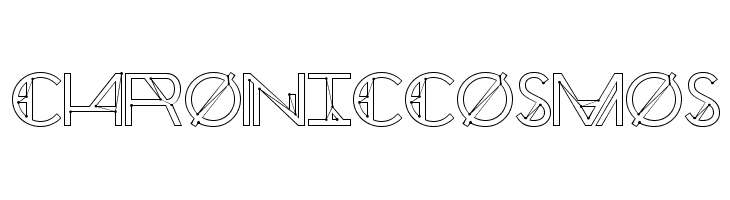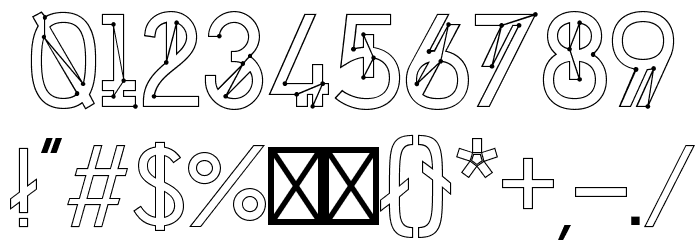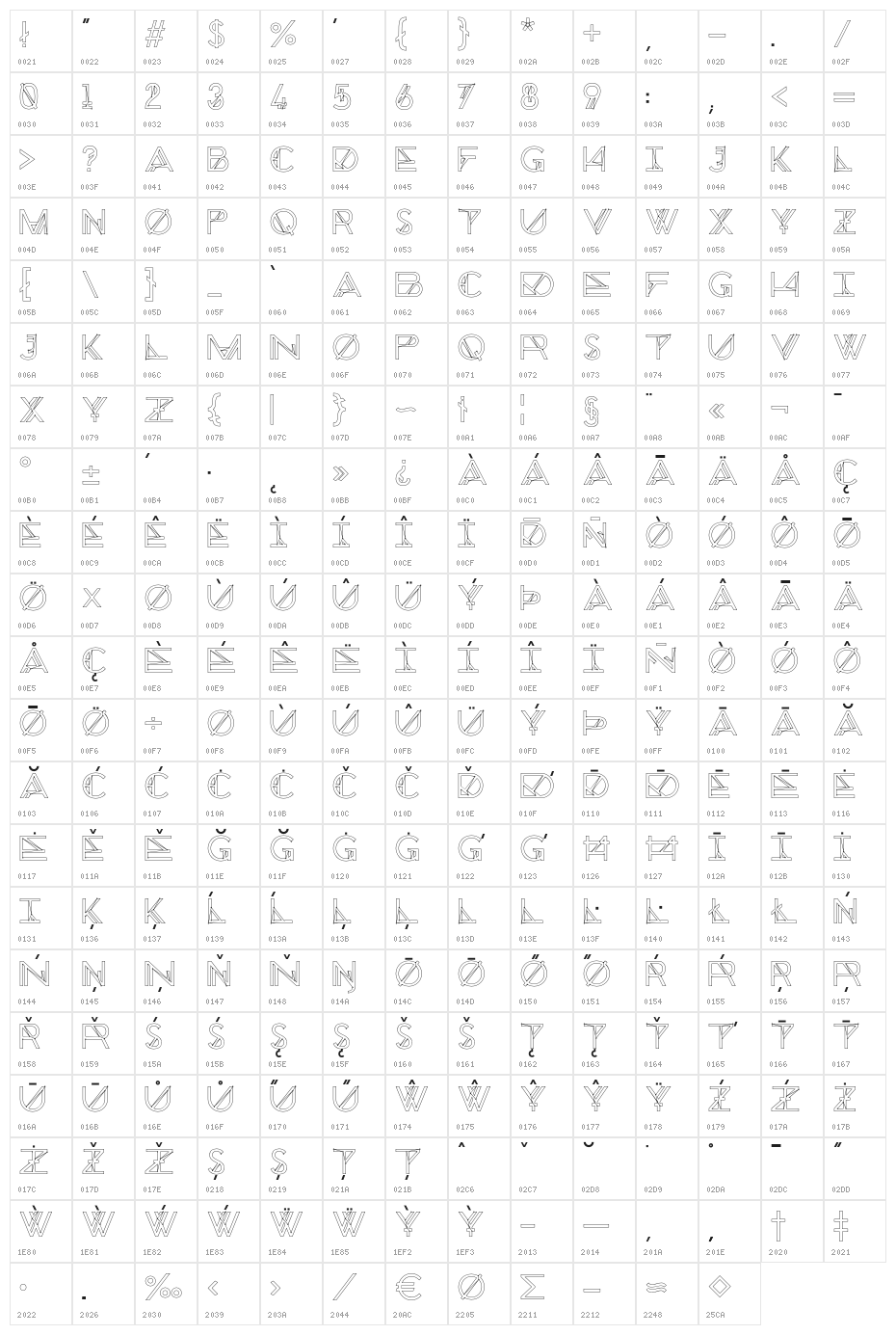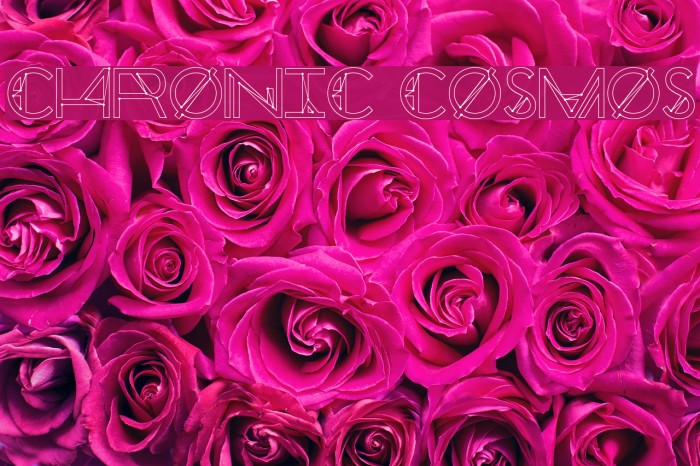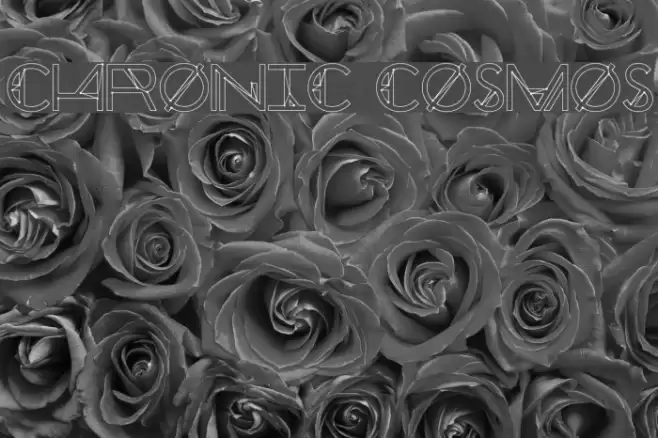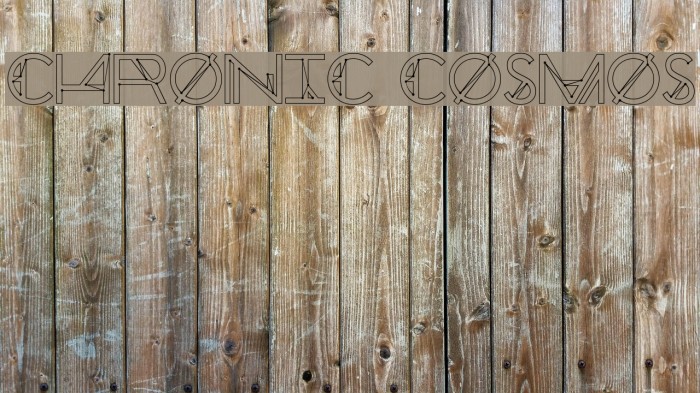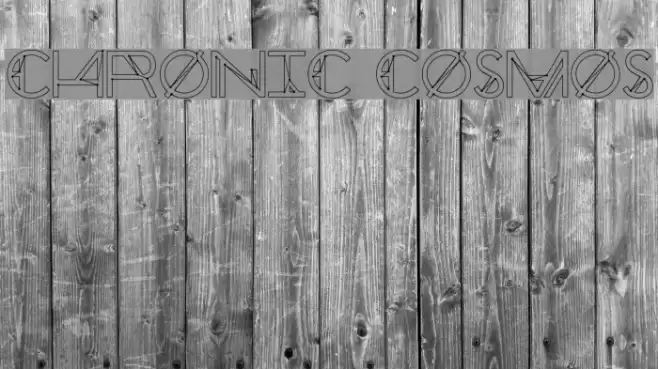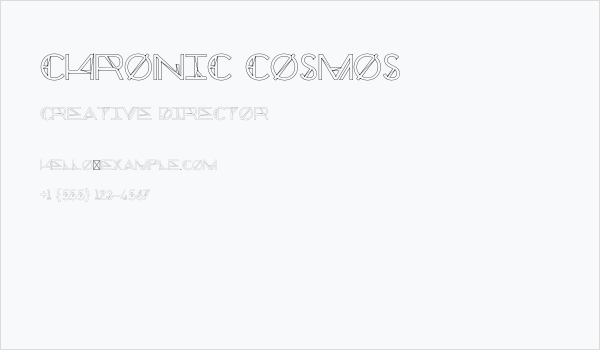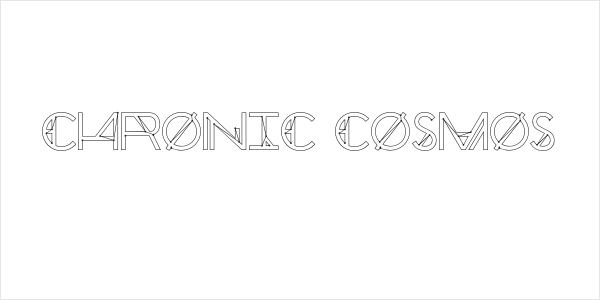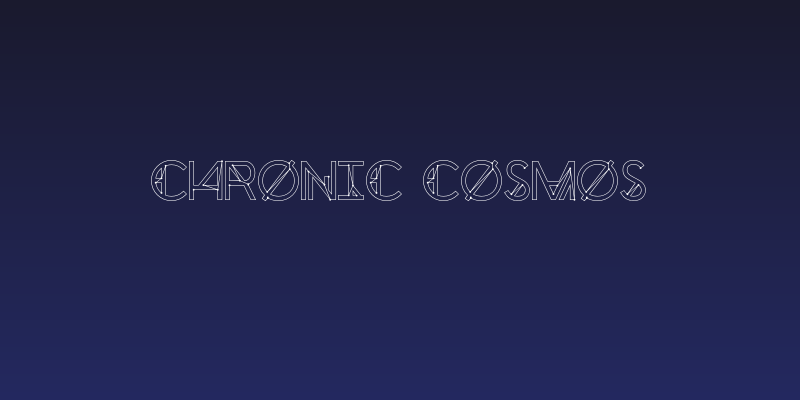
Chronic Cosmos Font
Chronic Cosmos Description
This font features a futuristic and geometric design with a unique outline style. Each character is constructed with a combination of straight lines and sharp angles, creating a sense of movement and modernity. The uppercase and lowercase letters maintain a consistent style, with some characters incorporating diagonal lines that intersect the main structure, adding a dynamic element. The numbers follow the same geometric pattern, ensuring uniformity across the font. Special characters are designed with the same attention to detail, making them visually cohesive with the rest of the set. This font is ideal for projects that require a contemporary and edgy look.
| Proposed Projects | Ideal for sci-fi themed designs, tech branding, modern posters, and digital artwork. |